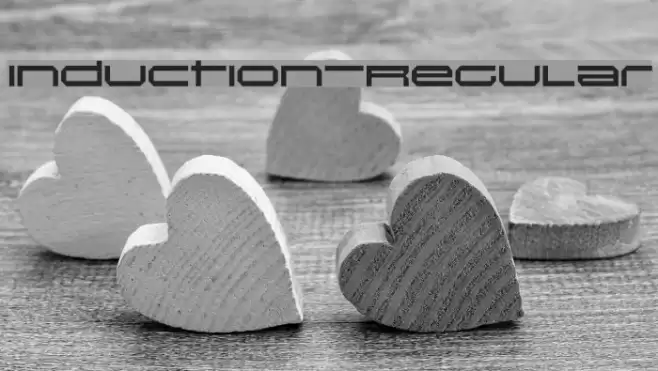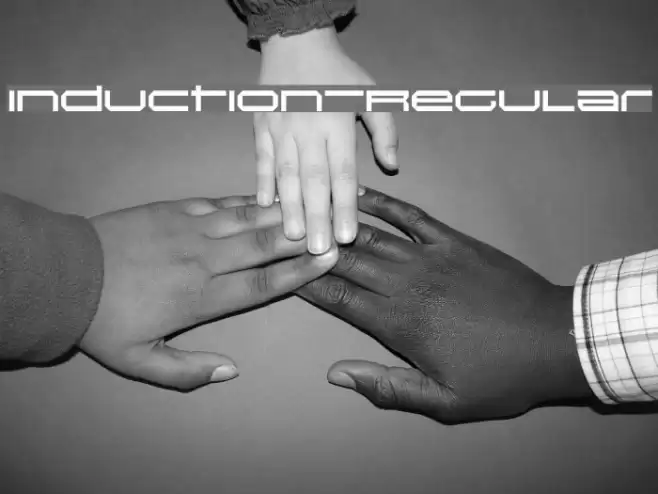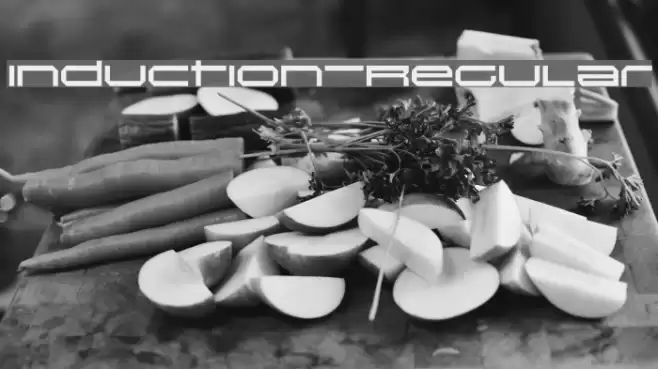
Induction-Regular Font
Induction-Regular Description
This font features a futuristic and geometric design, characterized by its angular and block-like letterforms. The uppercase and lowercase letters maintain a consistent structure, with sharp edges and a uniform stroke width that gives it a mechanical and digital appearance. The numerals and special characters follow the same design principles, ensuring a cohesive look across all glyphs. Its clean lines and modern aesthetic make it suitable for tech-related projects or any design that requires a contemporary and edgy feel.
A futuristic, geometric font with angular, block-like letterforms from Uncategorized fonts.
- Proposed Projects: Ideal for technology branding, sci-fi themed designs, video game interfaces, and modern advertising.